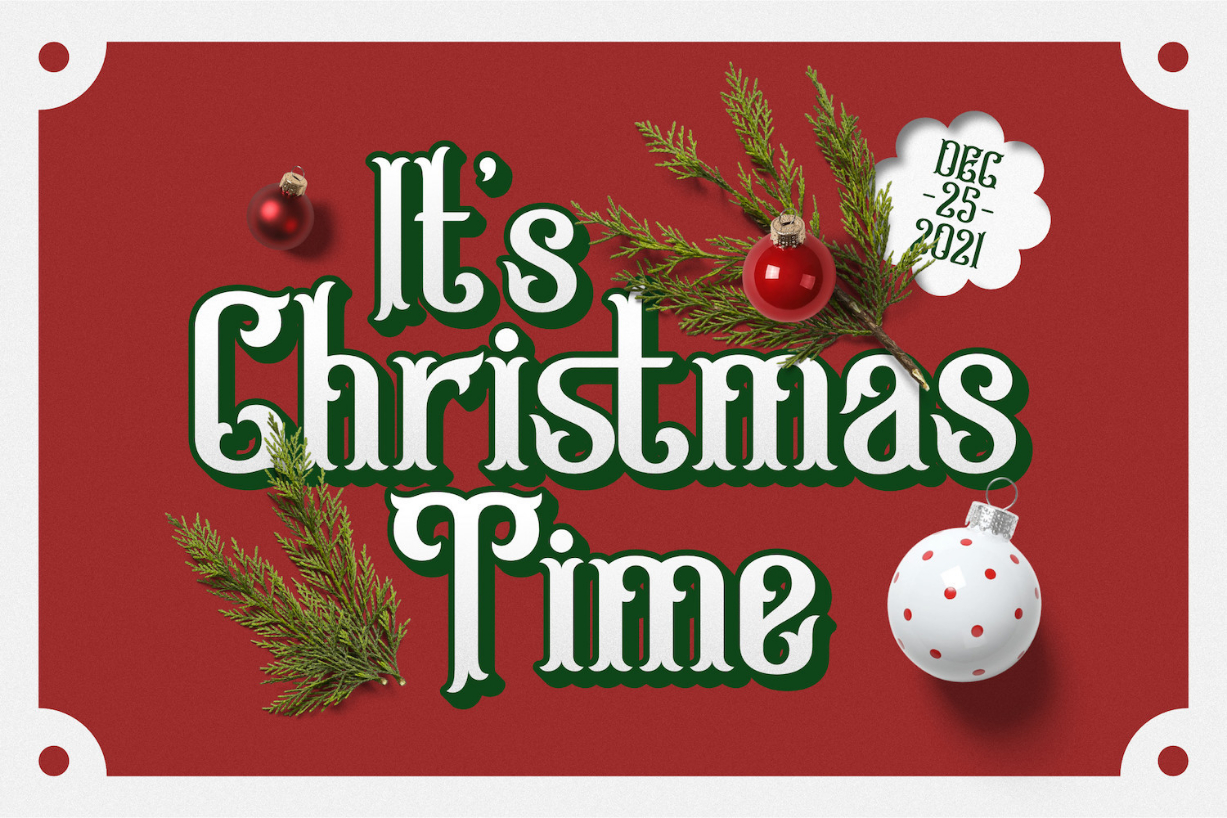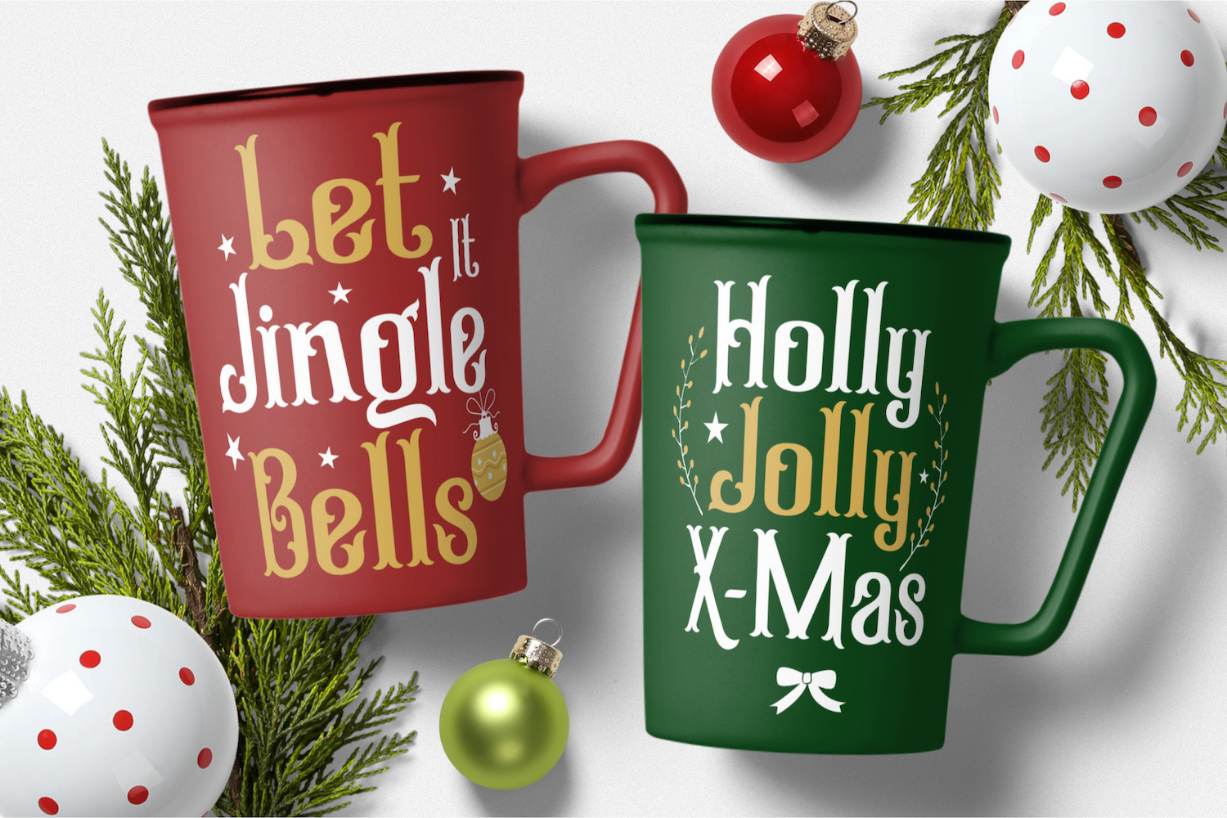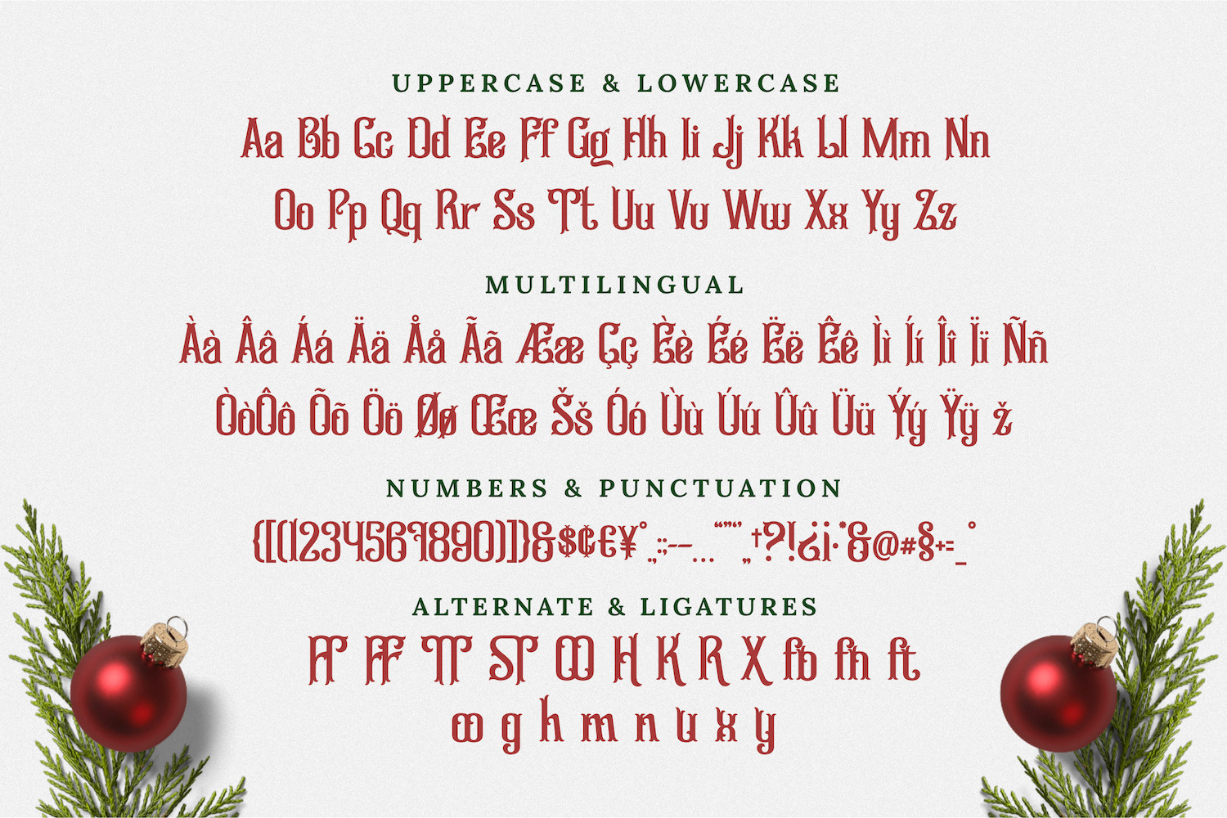
Blueming Font
About Blueming Font
Blueming is a vintage styled and uniquely designed blackletter font. No matter the topic, this font will be an incredible asset to your fonts’ library, as it has the potential to elevate any creation.